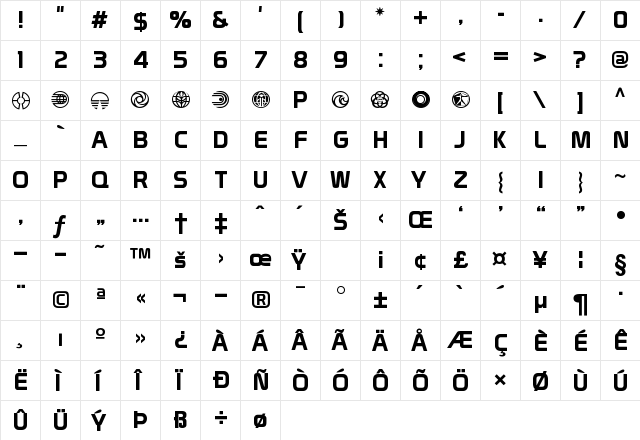
Prototype Pavilion Regular
Design Context for Prototype Pavilion Typeface
Prototype Pavilion takes a measured approach to typography — its balanced proportions and neutral character make it a reliable workhorse for both digital and print work.
Pro Tip: Use Prototype Pavilion in both headline and body roles to test its range before committing to a single application.